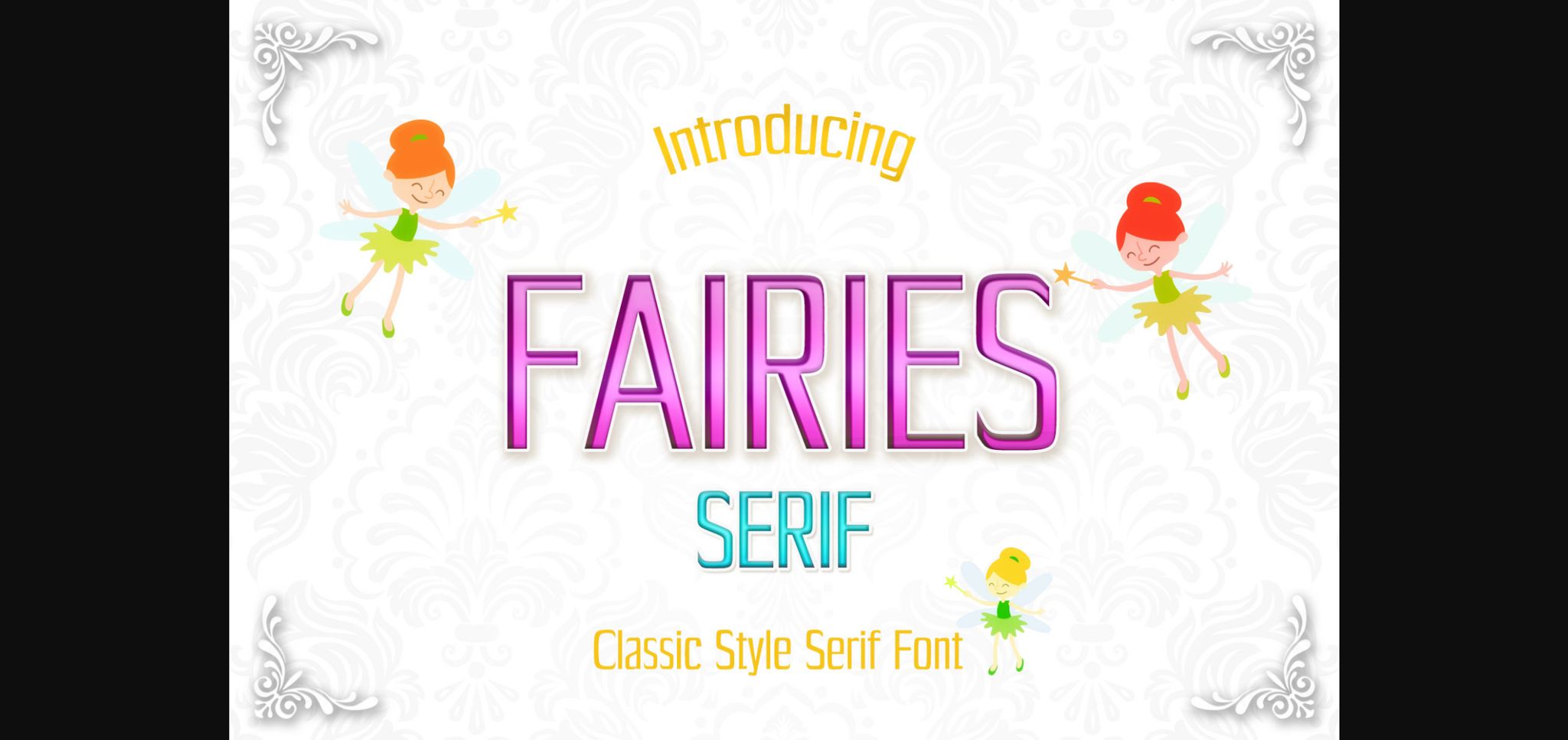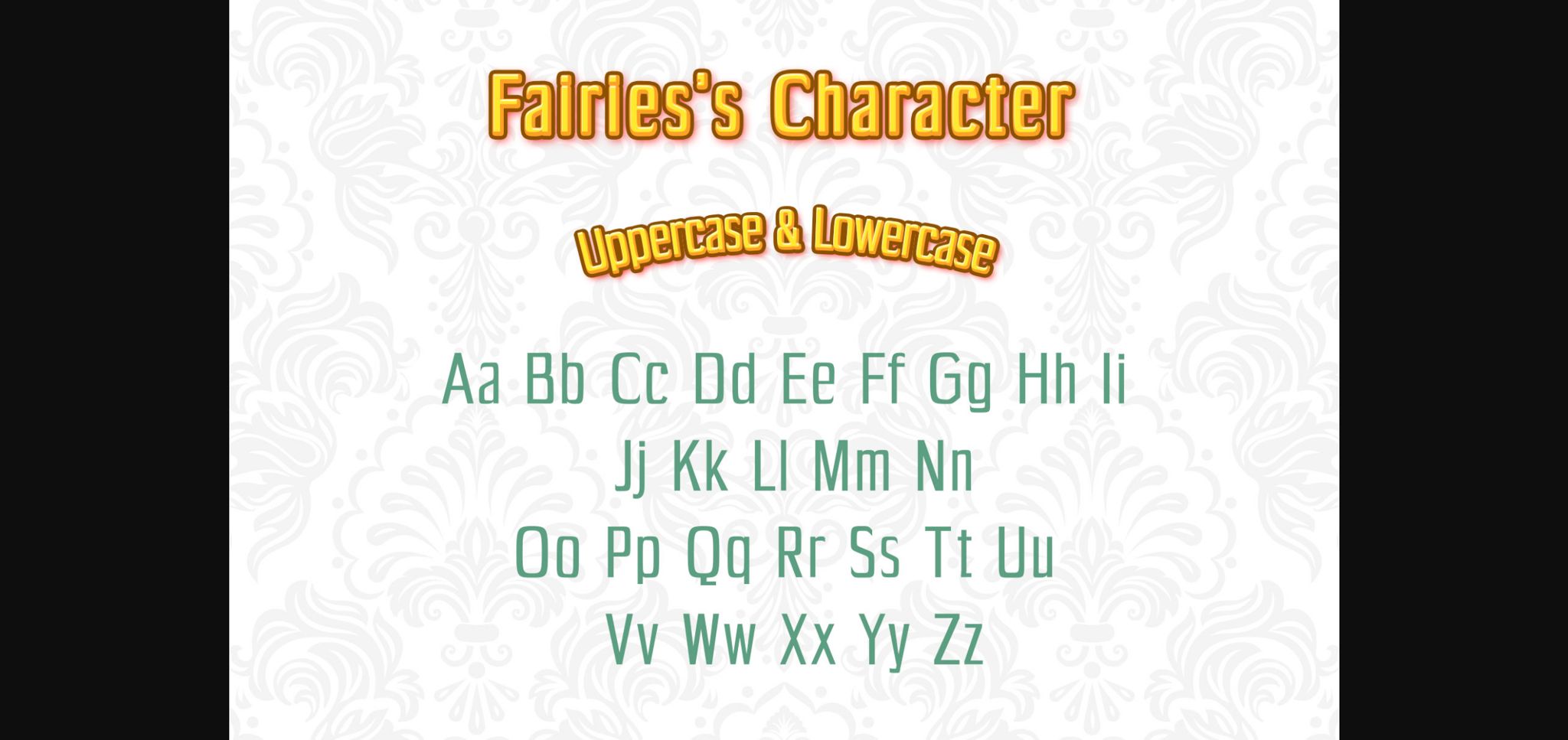
About Fairies Font
Fairies is a font that embodies simplicity and boldness, making it a versatile choice for a diverse array of projects. Its clean lines and strong presence ensure that it seamlessly integrates into any design, adding a touch of distinction that sets your creations apart from the rest.
One of Fairies’ standout features is its adaptability. Whether you’re designing a logo, crafting posters, or creating web typography, Fairies effortlessly complements your vision with its bold yet straightforward aesthetic. Its commanding presence demands attention, making it perfect for projects where you want to make a statement.
Readability is paramount in design, and Fairies excels in this aspect. Its clean and well-defined characters ensure clarity across various platforms and mediums, whether it’s viewed on screens or in print. This enhances the user experience, ensuring that your message is conveyed effectively to your audience.
Furthermore, Fairies’ bold appearance exudes confidence and authority. Whether it’s used for headlines, banners, or branding materials, Fairies commands attention and instills trust in your audience. Its strong presence makes it ideal for projects where you want to convey a sense of strength and modernity.
In summary, Fairies is a font that stands out for its simplicity and boldness. With its clean lines and strong presence, it seamlessly integrates into a wide range of design projects, adding a touch of distinction and making your creations memorable. Whether you’re designing a logo, crafting posters, or creating web typography, Fairies is the perfect choice for projects where you want to make a statement with confidence and clarity.